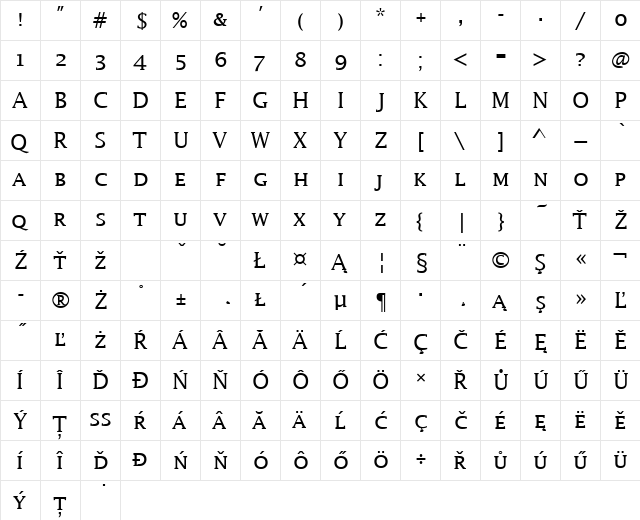
LucidaSCTEERom Regular
Design Context for LucidaSCTEERom Typeface
LucidaSCTEERom is a composed and adaptable typeface that performs quietly and consistently across a wide range of design contexts.
Pro Tip: Use LucidaSCTEERom in both headline and body roles to test its range before committing to a single application.